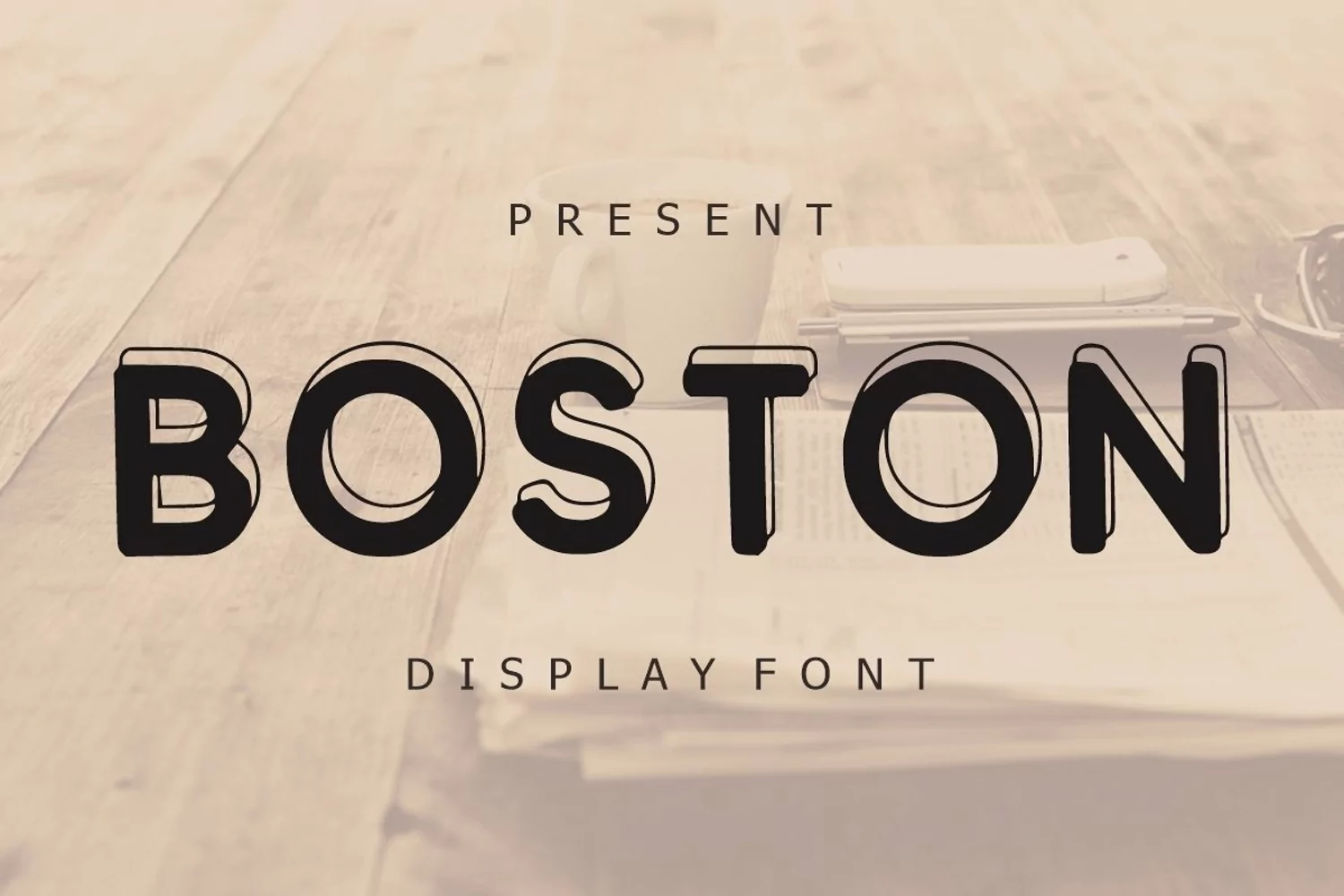
Boston
BOSTON is a vintage, classic, retro, and bold display font. You can use it for various projects such as blog posts, logos, branding, ads, invitations, greeting cards, planners, photo albums, decorations, and much more.
Boston